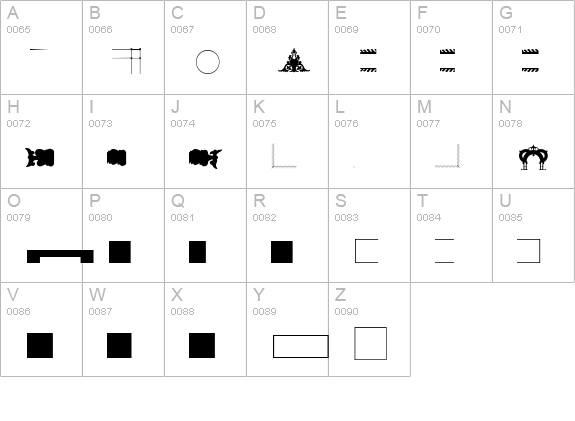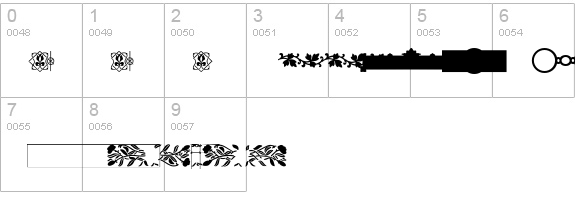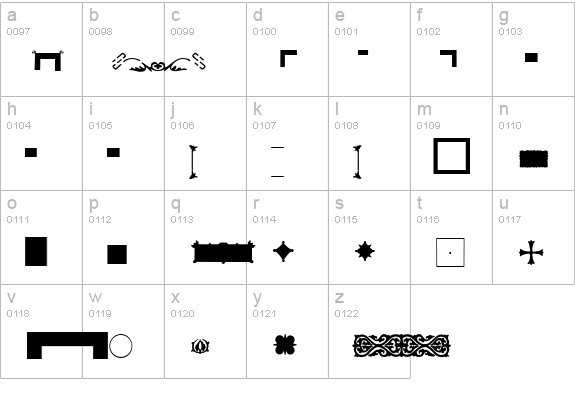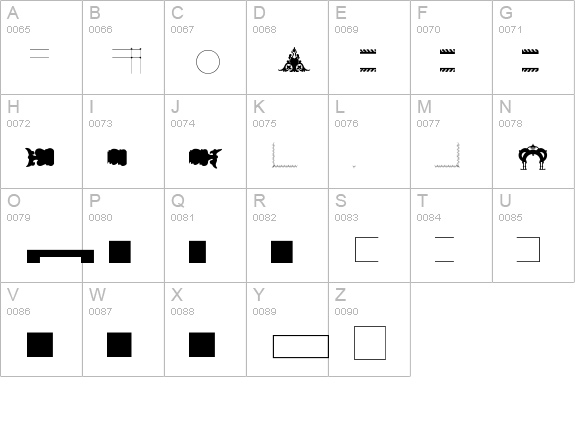
PFOrnmTreasures3-Layer1 font is a stunning display typeface that exudes elegance and sophistication. With its intricate detailing and three-layered design, this font is perfect for creating eye-catching headlines, posters, and invitations. The ornate elements and decorative flourishes add a touch of luxury to any design project. What sets PFOrnmTreasures3-Layer1 font apart is that it is available for free download at FontsMarket.com. This means that you can easily access this beautiful font and use it in your personal and commercial projects without any cost. Don't miss out on this opportunity to enhance your designs with the exquisite charm of PFOrnmTreasures3-Layer1 font. Download it now and elevate your creations to the next level.